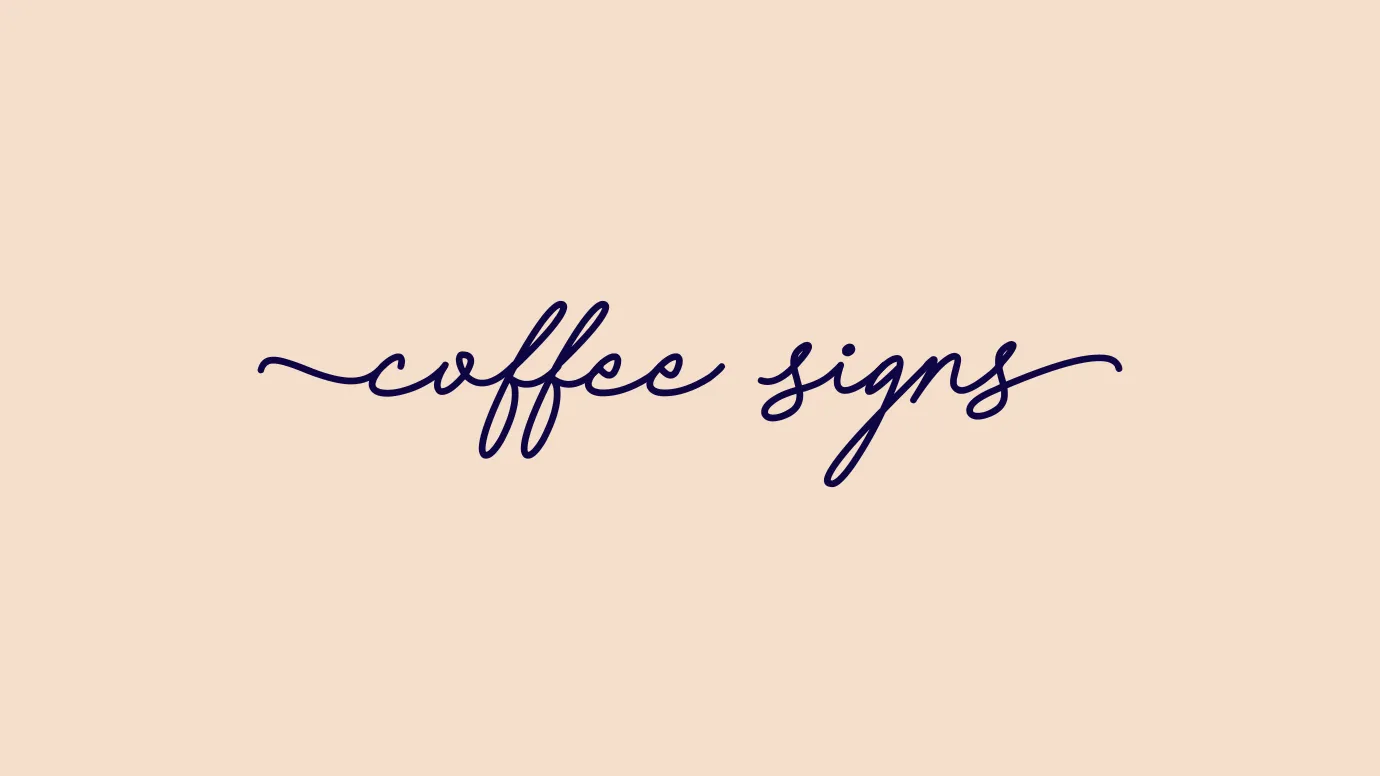
Coffee Signs Font Family is a very beautiful handwritten typeface that has a vintage look also.  It was mostly used in the 20th century. This is a very stylish typeface that has amazing features. It contains 275 characters and 240 glyph. Unicode supports 2.0 and BPM only.
The look of this amazing typeface is very elegant and you can make so many personal and commercial projects by using this font. It was designed by AruKids.FL.
Coffee Signs Font